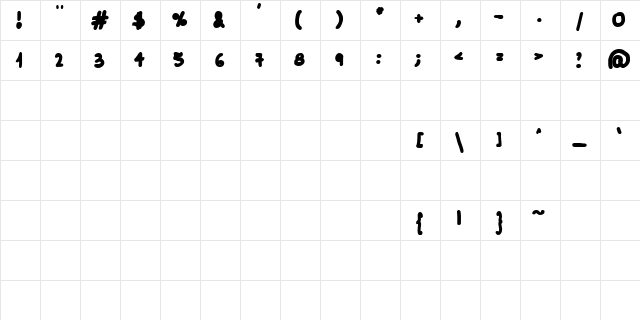
BN Anna Bold Regular
Design Context for BN Anna Bold
BN Anna Bold is a composed and adaptable typeface that performs quietly and consistently across a wide range of design contexts. Its bold stroke weight gives it real presence on the page.